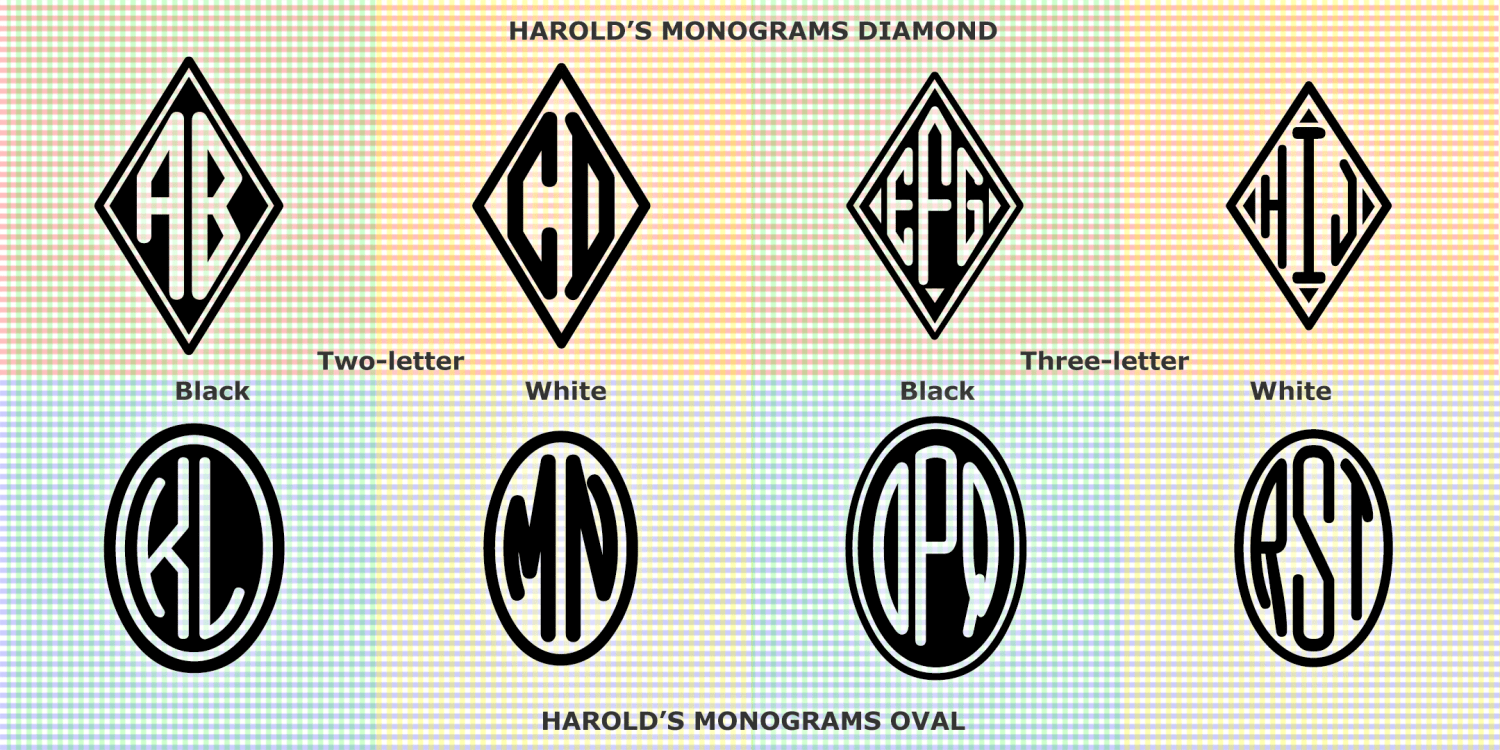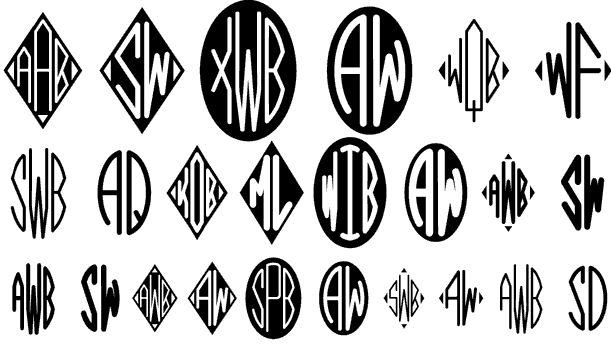
Harold's Monograms
Harold's Monograms is my original set of oval and diamond shape fonts which allow you to easily create attractive custom monograms in almost any program.
Three-letter style fonts include 26 caps and a blank in all 3 positions, plus "&" in the center and a ring option. Two-letter style fonts include 26 caps and a blank in both positions and a ring option.